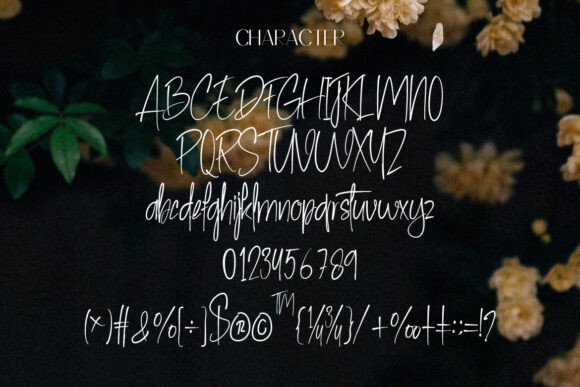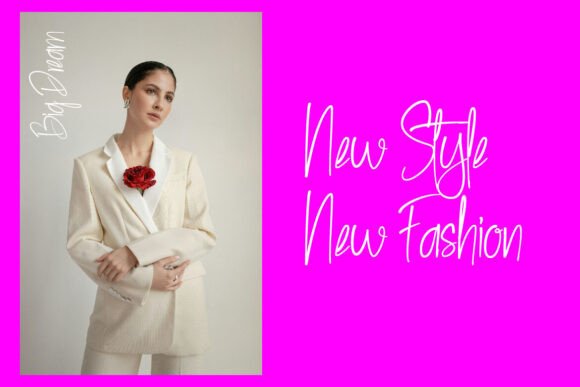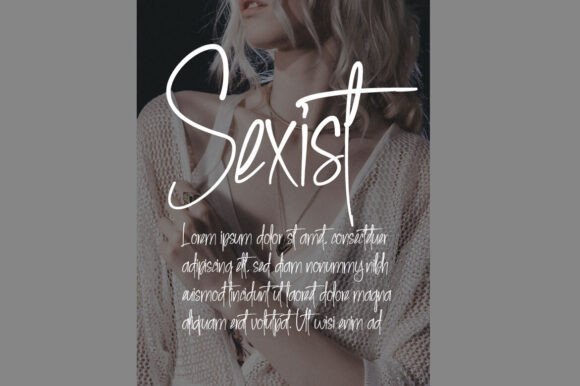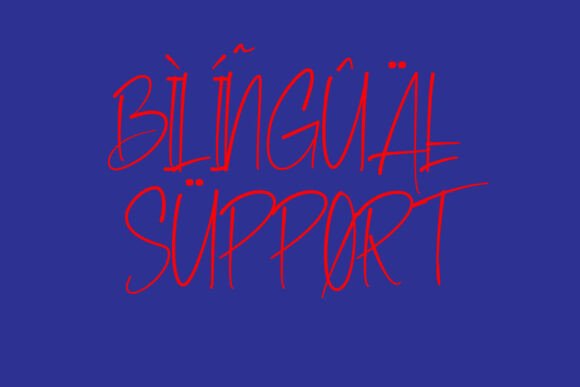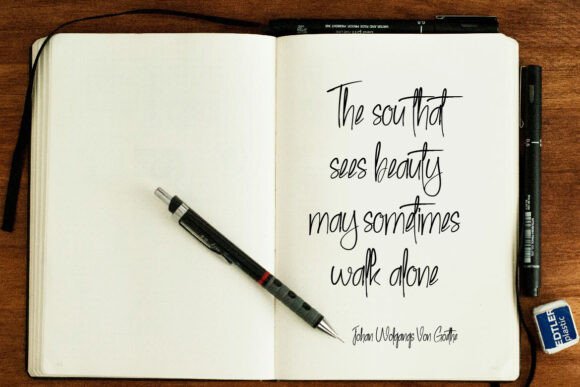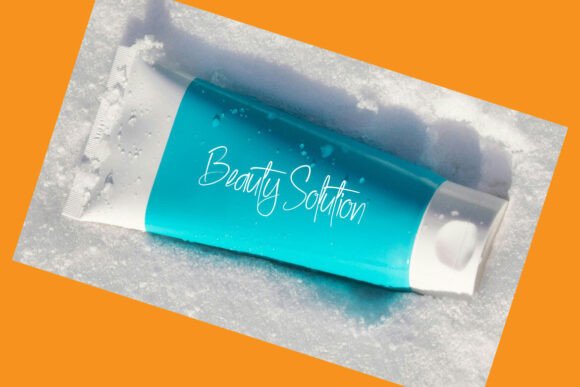
Unveiling Big Dream: A Captivating Script Font for Creative Endeavors
In the world of typography, a font can make all the difference in elevating a design from ordinary to extraordinary. Introducing Big Dream, a beautifully versatile script font that commands attention and infuses a sense of class and sophistication into a diverse range of creative endeavors.
A Font for Every Creative Project
Big Dream is more than just a font – it’s a design essential that can breathe life into various creative projects. Whether you’re designing personalized stationery, creating a memorable logo, or setting the stage with a wedding invitation, Big Dream is the perfect choice. Its elegant and sophisticated feel translates beautifully onto cards, lends a timeless charm to typography quotes, and adds a touch of luxury to magazine or book covers.
The versatility of Big Dream knows no bounds. For website headers that pop, clothing designs with a unique edge, or branding and packaging with a distinctly stylish flair, Big Dream is the perfect enhancement. This captivating script font can also elevate your style quotient with smashing fashion-related editorial designs and dynamic social media posts.
Why Choose Big Dream?
So, what sets Big Dream apart from other fonts? Here are just a few reasons why designers and crafters love this font:
- Elegance and Sophistication: Big Dream exudes a sense of luxury and refinement, making it perfect for high-end designs.
- Versatility: From stationery to website headers, Big Dream can be used in a wide range of creative projects.
- Attention-Grabbing: This captivating script font commands attention and makes a lasting impression.
- Timeless Charm: Big Dream’s classic feel ensures that your designs will never go out of style.
Using Big Dream in Your Designs
Big Dream is easy to use and can be incorporated into your designs in various ways. Here are a few ideas to get you started:
- Pair it with Other Fonts: Combine Big Dream with other fonts to create a unique and visually appealing design.
- Experiment with Colors: Try pairing Big Dream with different colors to add an extra layer of depth and interest to your design.
- Play with Texture: Add texture to your design by using Big Dream with different textures and patterns.
In conclusion, Big Dream is a captivating script font that can elevate your designs to new heights. Its elegance, sophistication, and versatility make it perfect for a wide range of creative endeavors. Whether you’re a designer, crafter, or DIY enthusiast, Big Dream is a must-have font that can add a touch of luxury and refinement to your projects. So why wait? Unveil your creative potential with Big Dream and let this beautiful font weave magic into your creations.
Get Ready to Make a Statement with Big Dream
With Big Dream, you can create designs that make a lasting impression. So, get ready to take your designs to the next level and make a statement with this stunning script font. Whether you’re working on a personal project or a client’s design brief, Big Dream is the perfect choice for anyone looking to add a touch of elegance and sophistication to their designs.